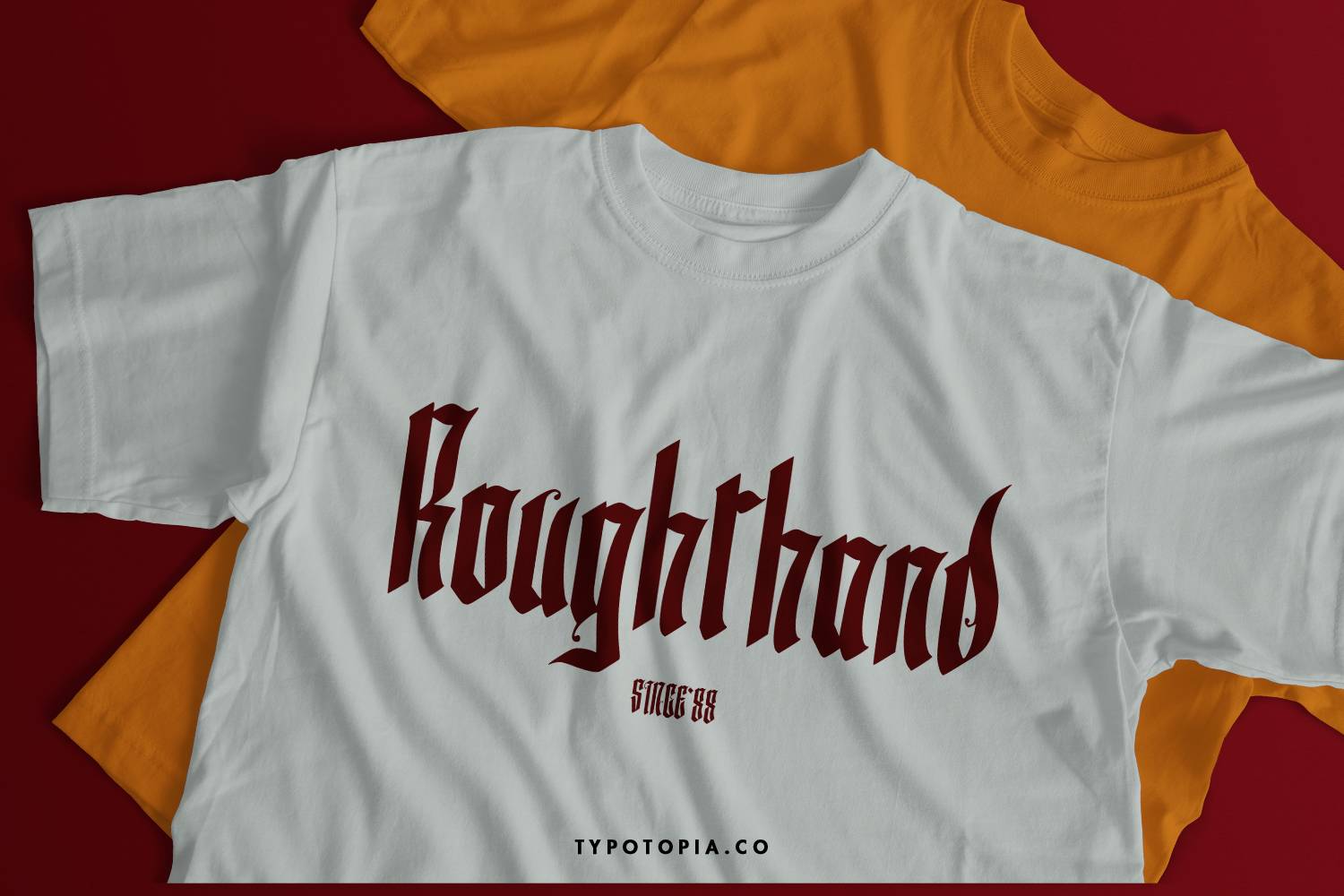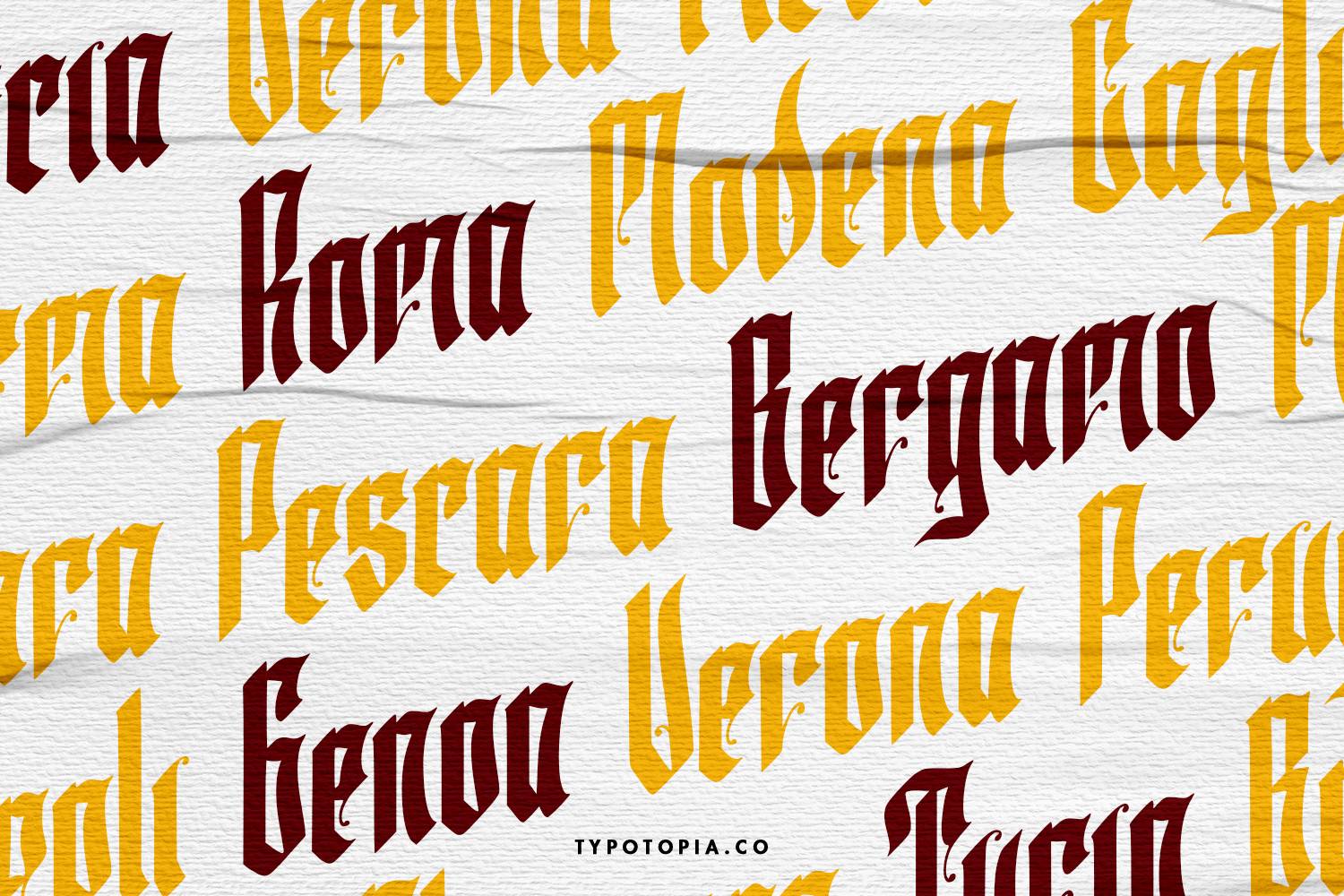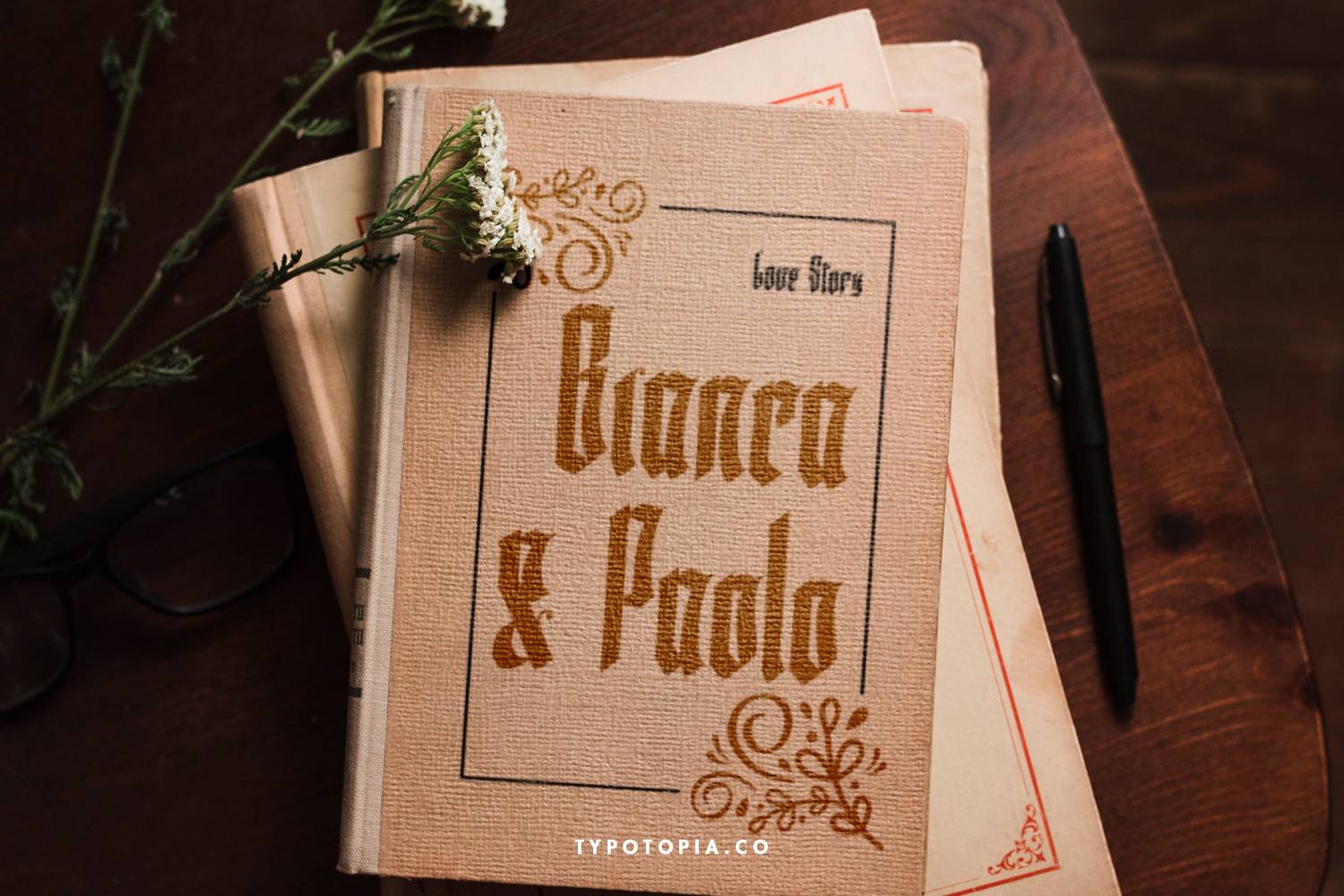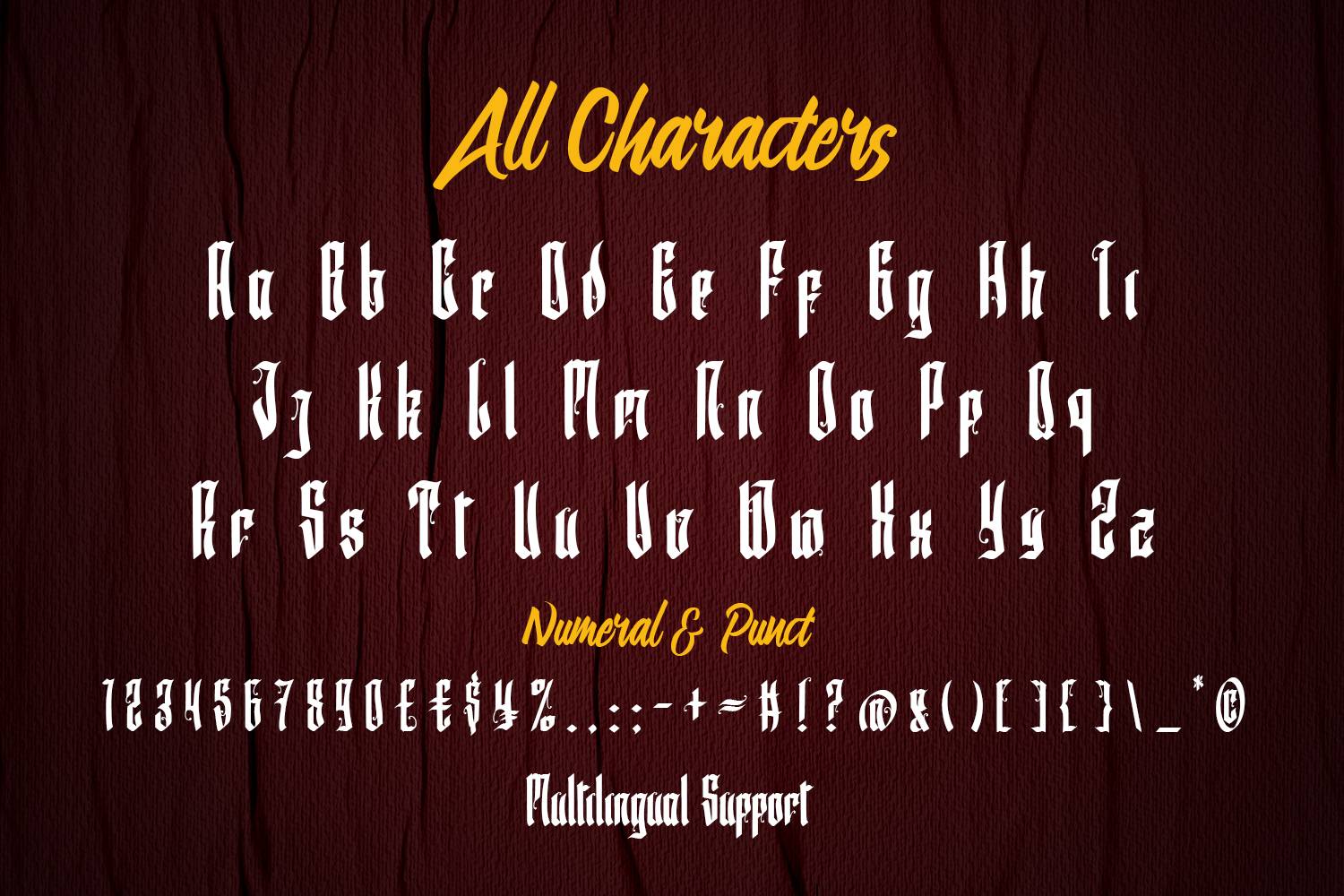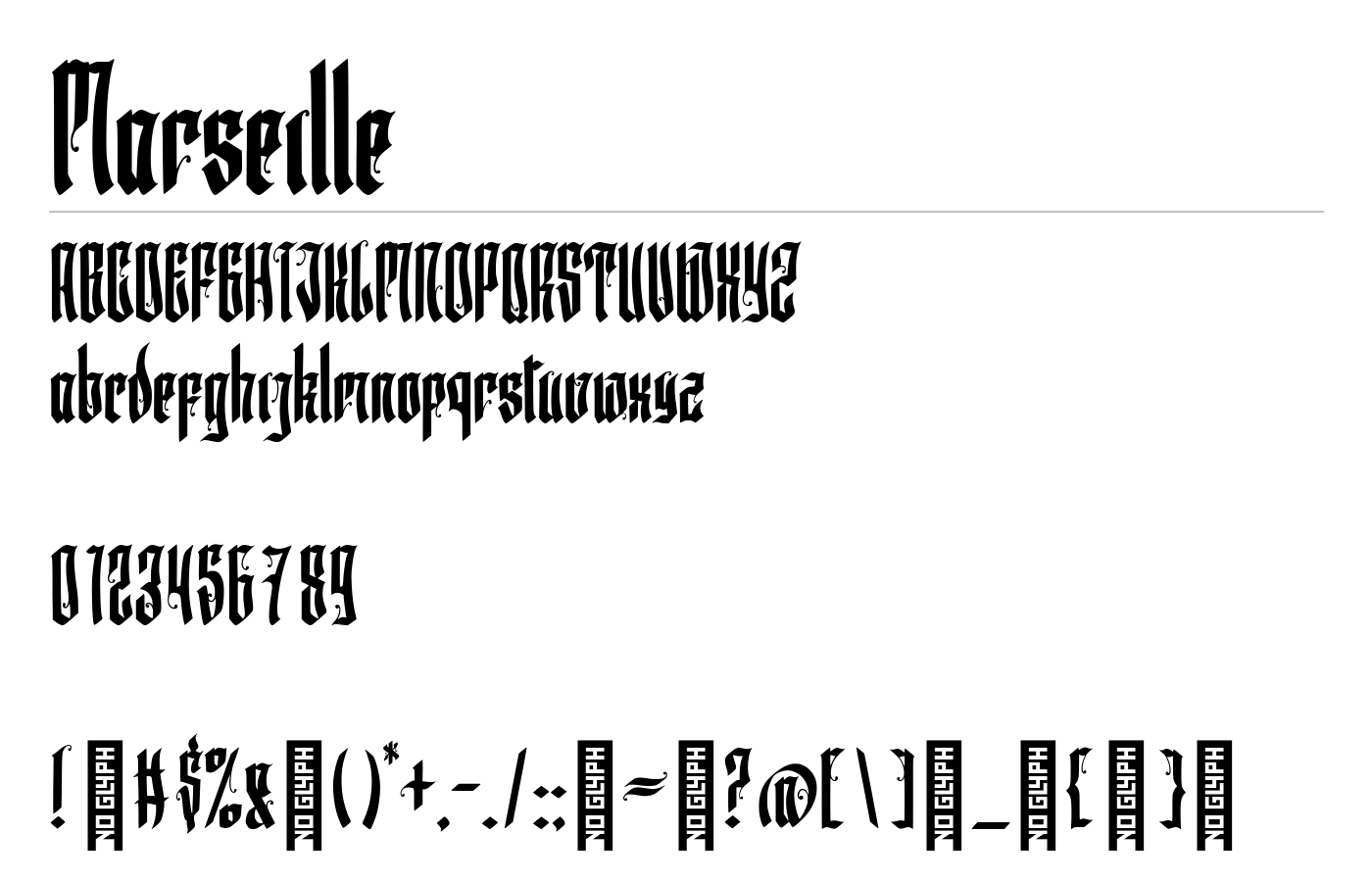
Marseille is a bold, condensed blackletter font with strong vertical strokes and sharp, angular details, giving it a historic and Gothic feel. Its dense texture and dramatic style make it ideal for headlines, logos, or designs that seek a vintage, medieval, or edgy atmosphere. This font commands attention with its distinctive character and suits branding or editorial projects that want to evoke tradition and boldness.
Marseille Font
About Marseille Font